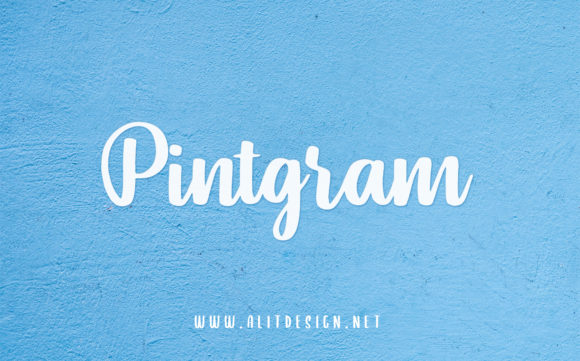
Behold the enchanting world of Pintgram Font – an ethereal script that dances across your screen with grace and charm. Created by the talented Alit Design, Pintgram is nothing short of a visual masterpiece, evoking a sense of playfulness, elegance, and timeless beauty.
With its delicate strokes and meticulous detailing, Pintgram is a font that captivates the imagination. Its light and airy feel adds a touch of whimsical charm to your designs, while its well-balanced characters create a harmonious flow that is easy on the eyes. Whether you're designing wedding invitations, branding materials, or social media posts, Pintgram will elevate your creations with its inherent elegance and grace.
Step into the realm of Pintgram and unlock a world of creative possibilities. Let your imagination soar as you craft designs that exude a sense of warmth and sophistication. With its enchanting curves and sweeping lines, Pintgram will transform your words into works of art, leaving a lasting impression on your audience.
Key features of Pintgram Font:
- A script font with an incredibly light and sweet appearance.
- Perfect for adding a touch of cuteness and playfulness to your designs.
- Well-balanced and easy-to-read characters.
- Ideal for use in wedding invitations, branding materials, social media posts, and more.
Experience the magic of Pintgram Font today and let your designs blossom with creativity.